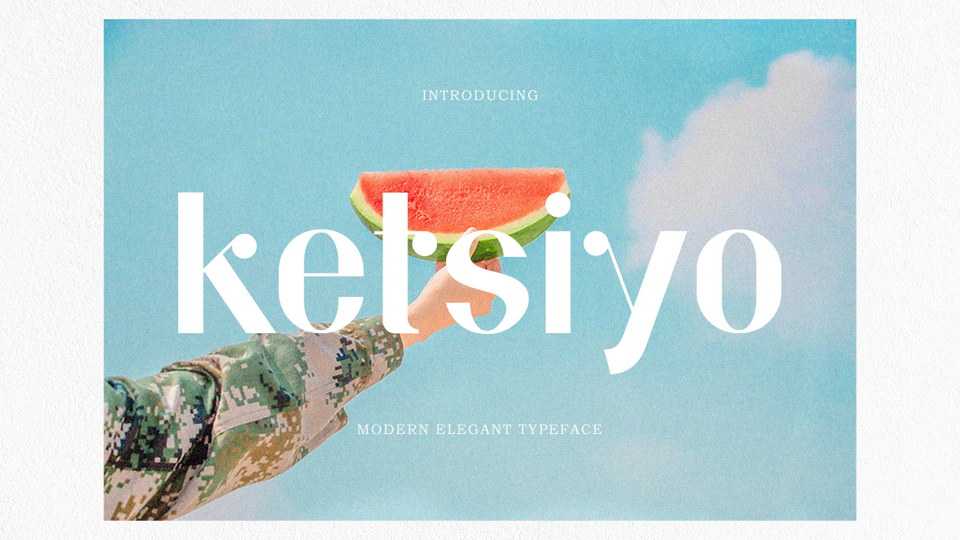
Download Ketsiyo font, a modern, elegant, bold and trendy display typeface. Simple but with a strong visual effect, Ketsiyo will instantly make your creation more appealing than any others.